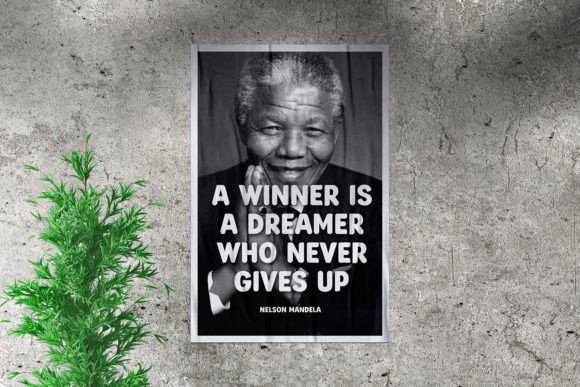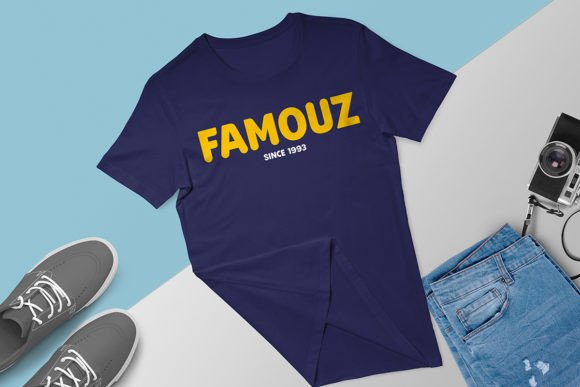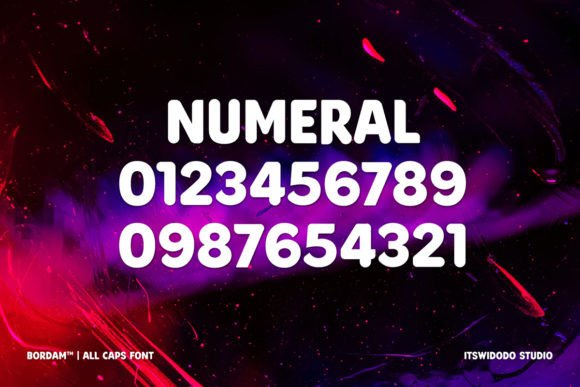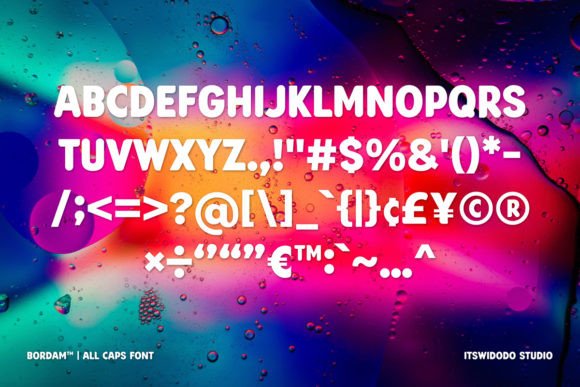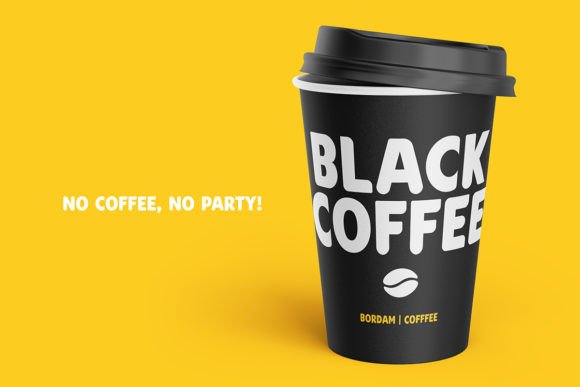
Bordam Font: A Bold and Assertive All-Caps Display Font
In the world of typography, a font can make or break a design. When it comes to creating visually striking and attention-grabbing content, having the right font is crucial. This is where Bordam Font comes in – a bold and assertive all-caps display font that can elevate any design project. In this article, we’ll dive into the features and benefits of Bordam Font, and explore how it can become a valuable asset in your font library.
The Power of Bold Typography
Bordam Font is a bold and assertive all-caps display font that exudes confidence and strength. Its sturdy and robust design makes it perfect for headlines, titles, and any other text that needs to stand out. Whether you’re designing a logo, brochure, or website, Bordam Font can help you create a lasting impression on your audience. Its bold nature ensures that your message is conveyed clearly and effectively, making it an ideal choice for designers and crafters looking to make a statement.
One of the key benefits of Bordam Font is its versatility. Regardless of the topic or industry, this font can adapt to any design style or theme. Whether you’re working on a modern and minimalist project or a vintage-inspired design, Bordam Font can seamlessly integrate and enhance your creation. Its all-caps design ensures that your text remains clear and legible, even at smaller font sizes, making it perfect for a wide range of applications.
Enhance Your Designs with Bordam Font
Bordam Font has the potential to enhance any creation, from logos and branding materials to posters and social media graphics. Its bold and assertive nature makes it perfect for:
- Headlines and titles: Create attention-grabbing headlines and titles that demand attention.
- Logos and branding: Establish a strong brand identity with a bold and memorable logo.
- Posters and flyers: Create eye-catching posters and flyers that stand out in a crowded space.
- Social media graphics: Elevate your social media graphics with bold and engaging text.
Why Choose Bordam Font?
So, why should you choose Bordam Font for your design projects? Here are just a few reasons:
- Unique and distinctive design: Bordam Font boasts a unique and distinctive design that sets it apart from other fonts.
- Highly legible: Despite its bold nature, Bordam Font remains highly legible, even at smaller font sizes.
- Versatile: Bordam Font can adapt to any design style or theme, making it a valuable asset in your font library.
- Easily customizable: Bordam Font can be easily customized to fit your design needs, making it a flexible choice.
Tips for Using Bordam Font
To get the most out of Bordam Font, here are a few tips to keep in mind:
- Use it sparingly: While Bordam Font is bold and attention-grabbing, it’s best to use it sparingly to avoid overwhelming your design.
- Pair it with contrasting fonts: Pair Bordam Font with contrasting fonts to create visual interest and hierarchy.
- Experiment with colors and textures: Experiment with different colors and textures to add depth and dimension to your design.
In conclusion, Bordam Font is a bold and assertive all-caps display font that can elevate any design project. Its versatility, legibility, and unique design make it a valuable asset in your font library. Whether you’re a designer or crafter, Bordam Font is a must-have font that can help you create visually striking and attention-grabbing content. So why wait? Add Bordam Font to your collection today and take your designs to the next level!